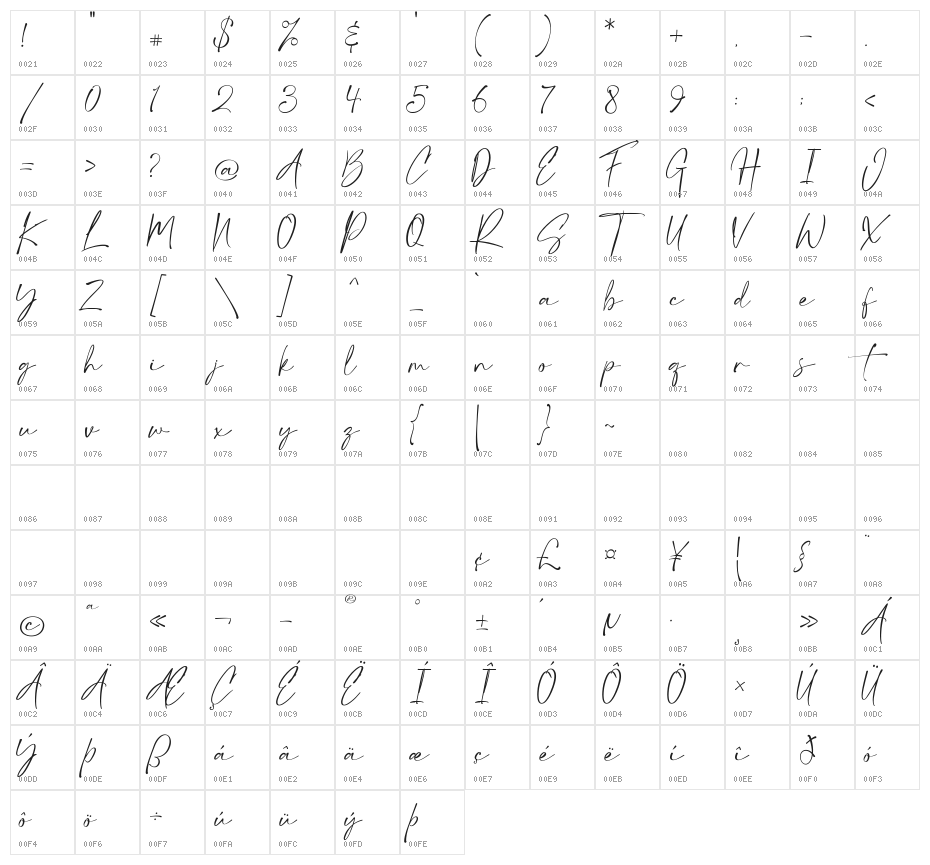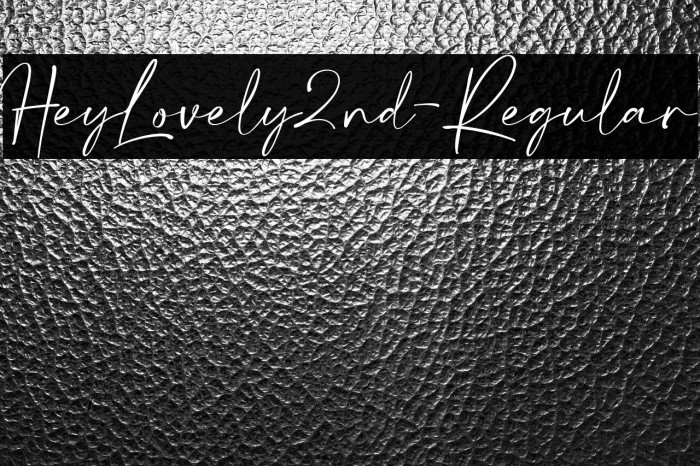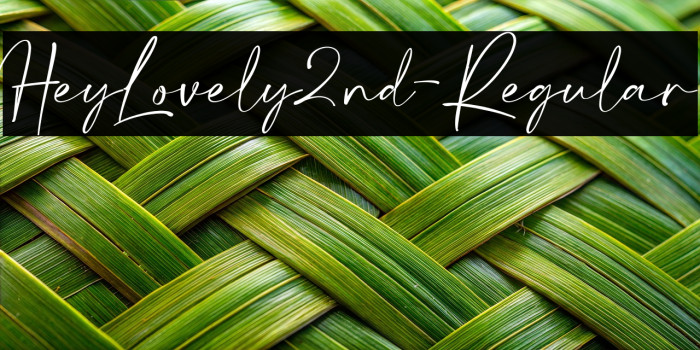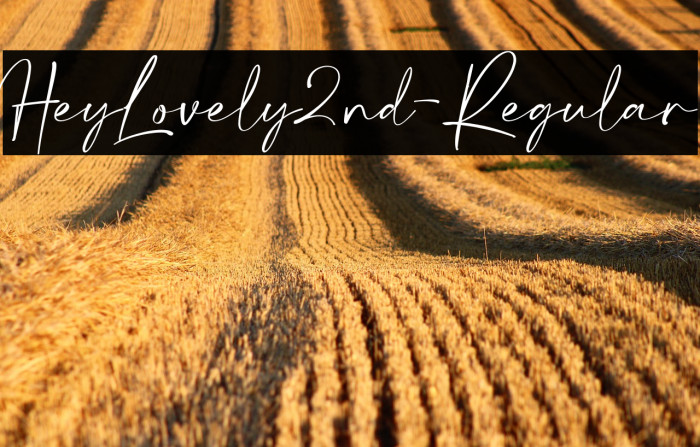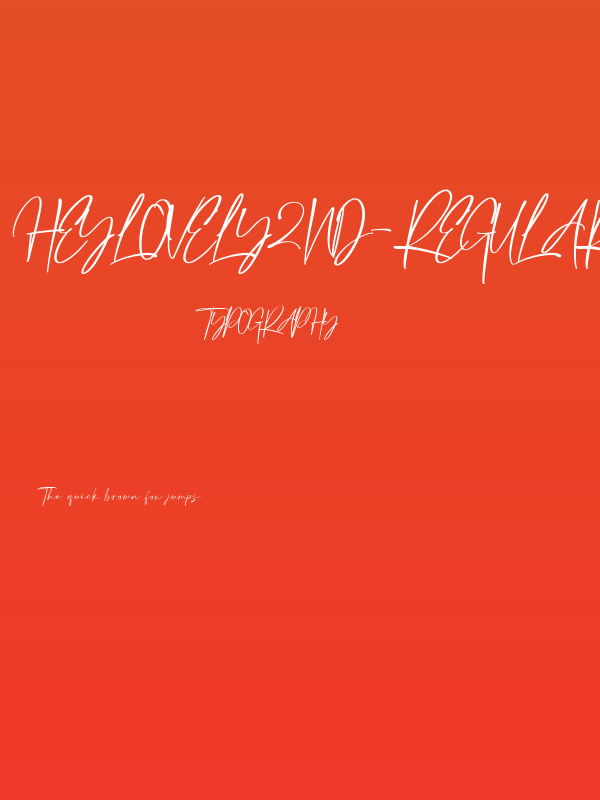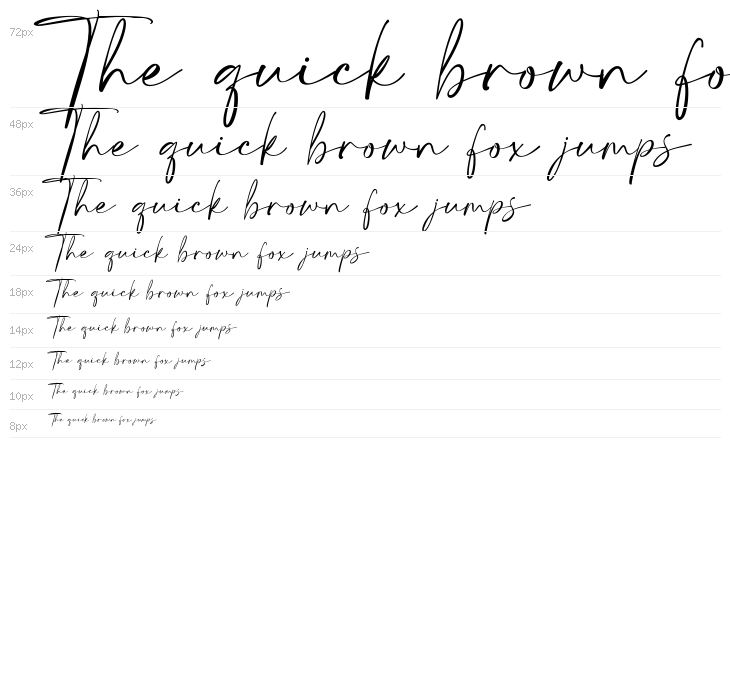
HeyLovely2nd-Regular Font
HeyLovely2nd-Regular Description
This font exhibits a lively and expressive handwritten style, characterized by its fluid and dynamic strokes. The uppercase letters are bold and slightly elongated, giving a sense of movement and energy. The lowercase letters maintain a consistent flow, with some characters featuring unique loops and curls that add to the overall charm. The numerals are clear and legible, maintaining the same playful aesthetic. Special characters are integrated seamlessly, ensuring versatility in various design contexts. This font is perfect for projects that require a personal touch or a creative flair.
| Proposed Projects | Ideal for wedding invitations, greeting cards, personal branding, and creative posters. |